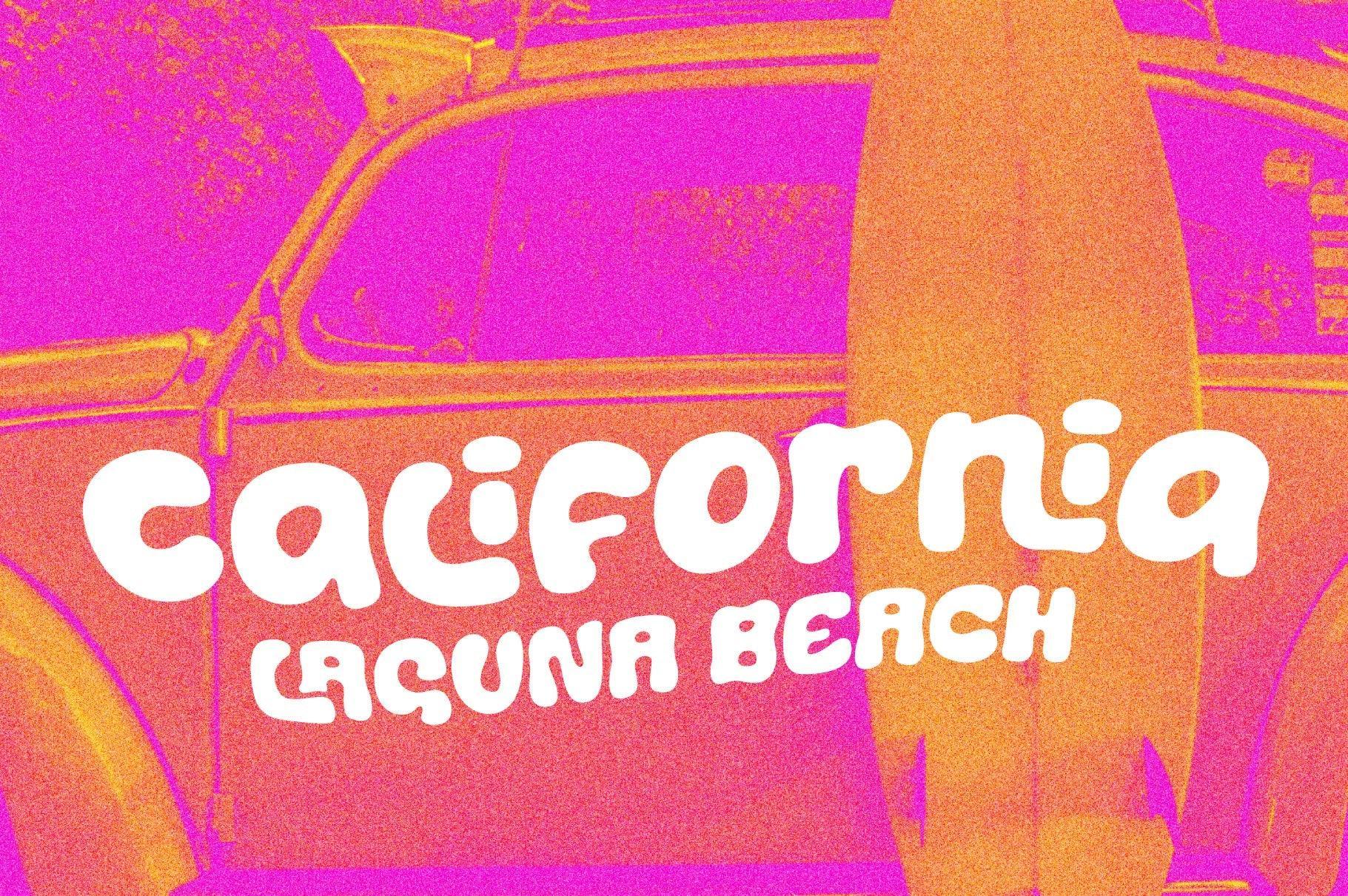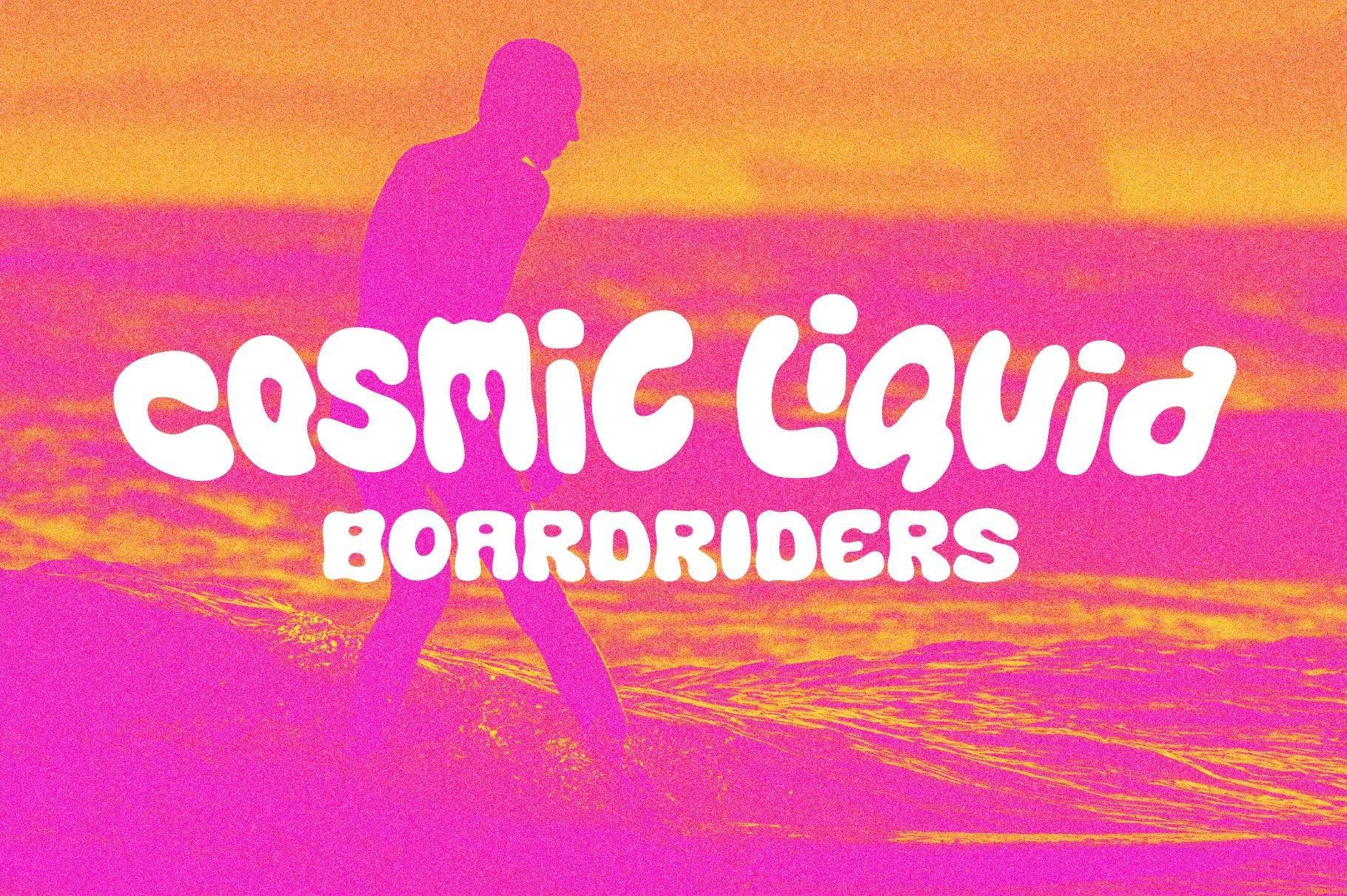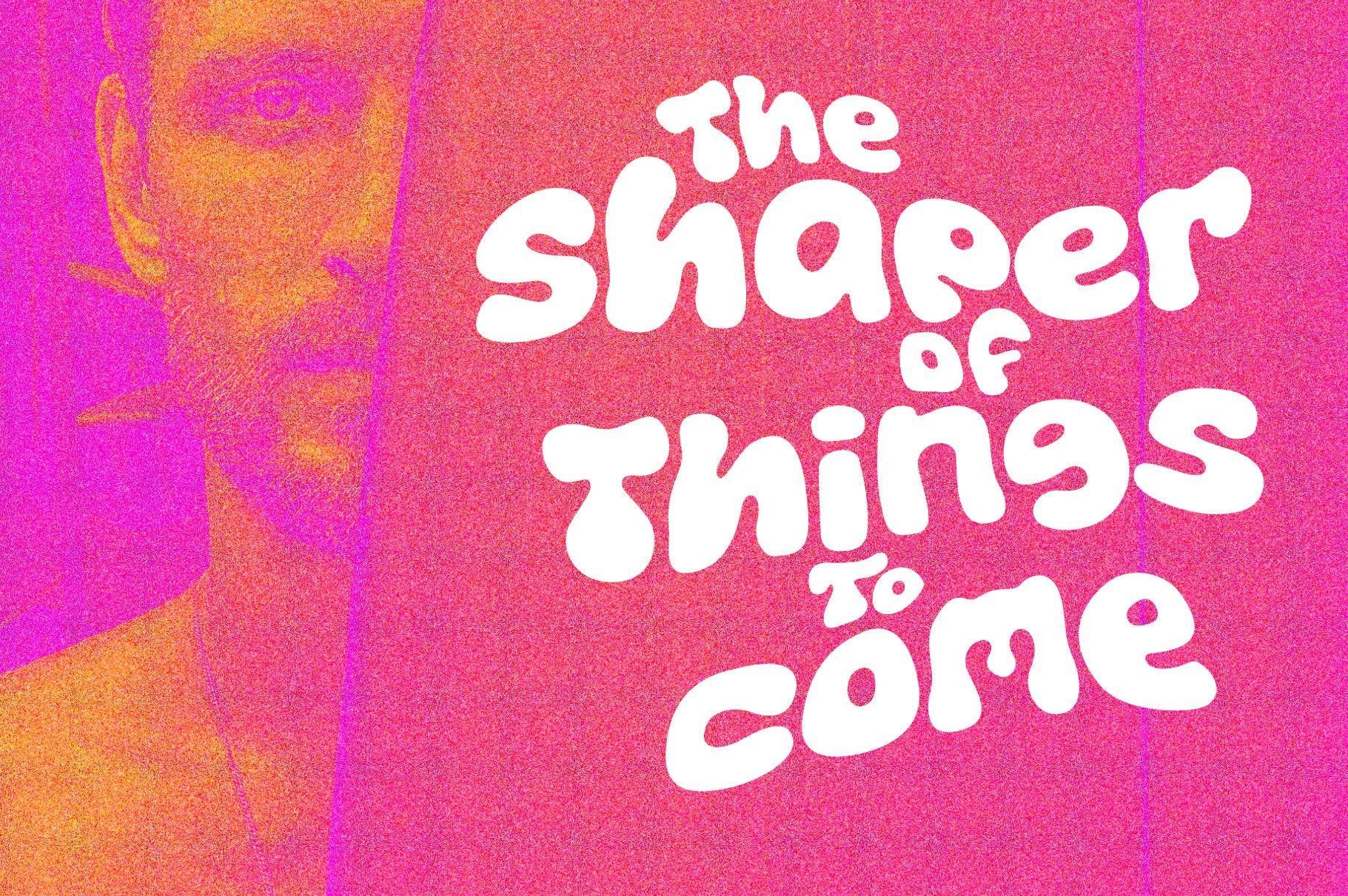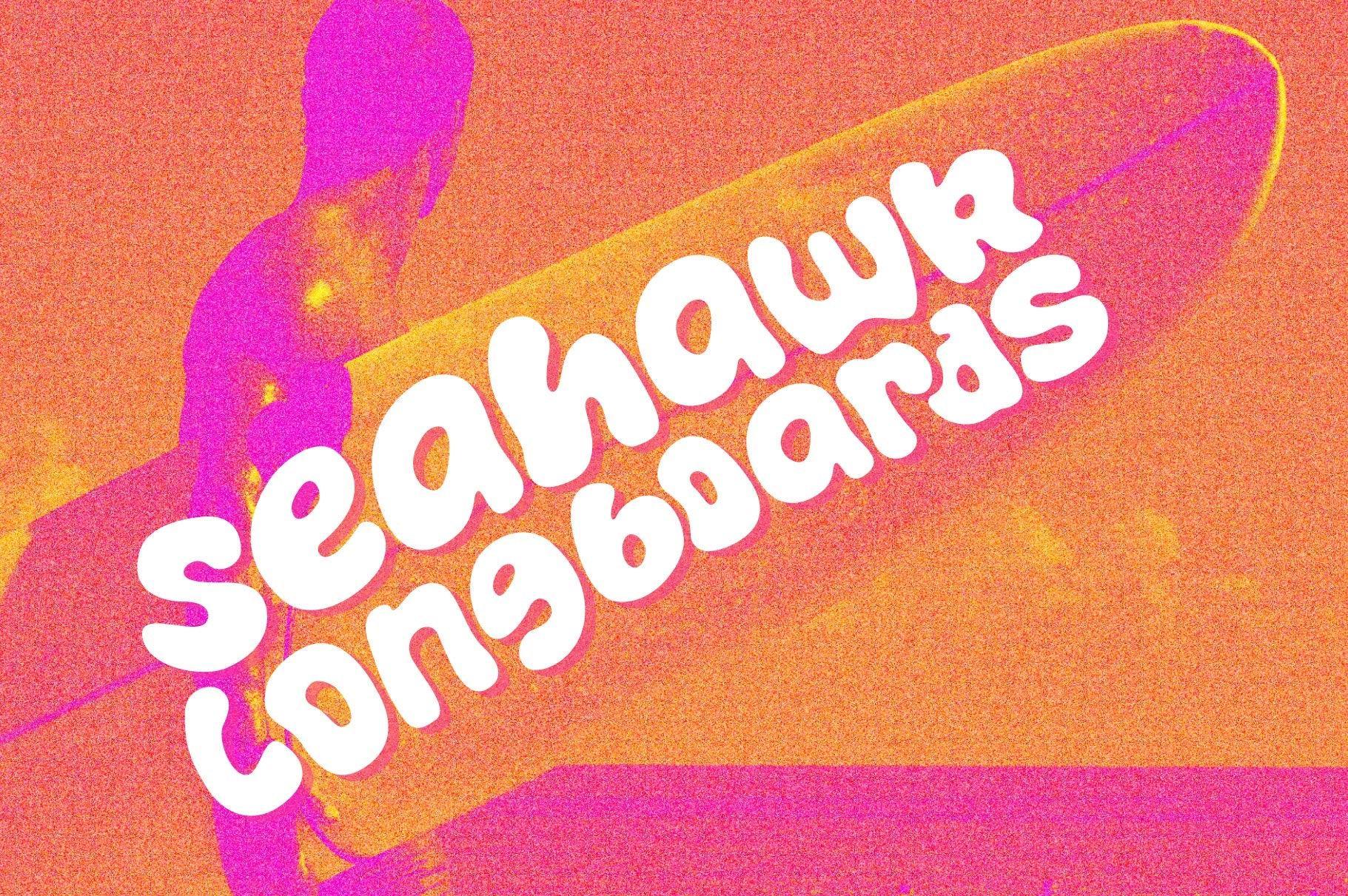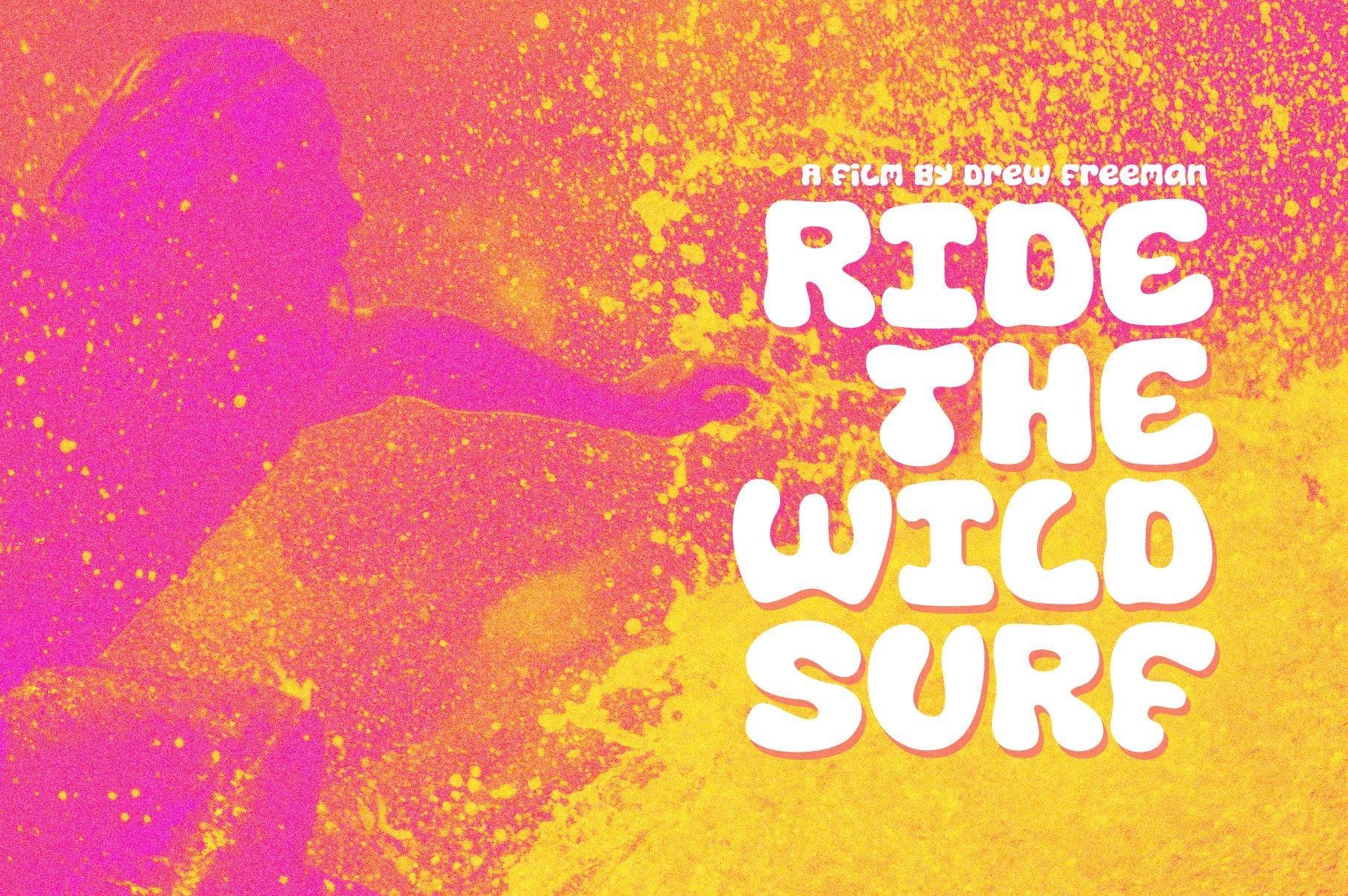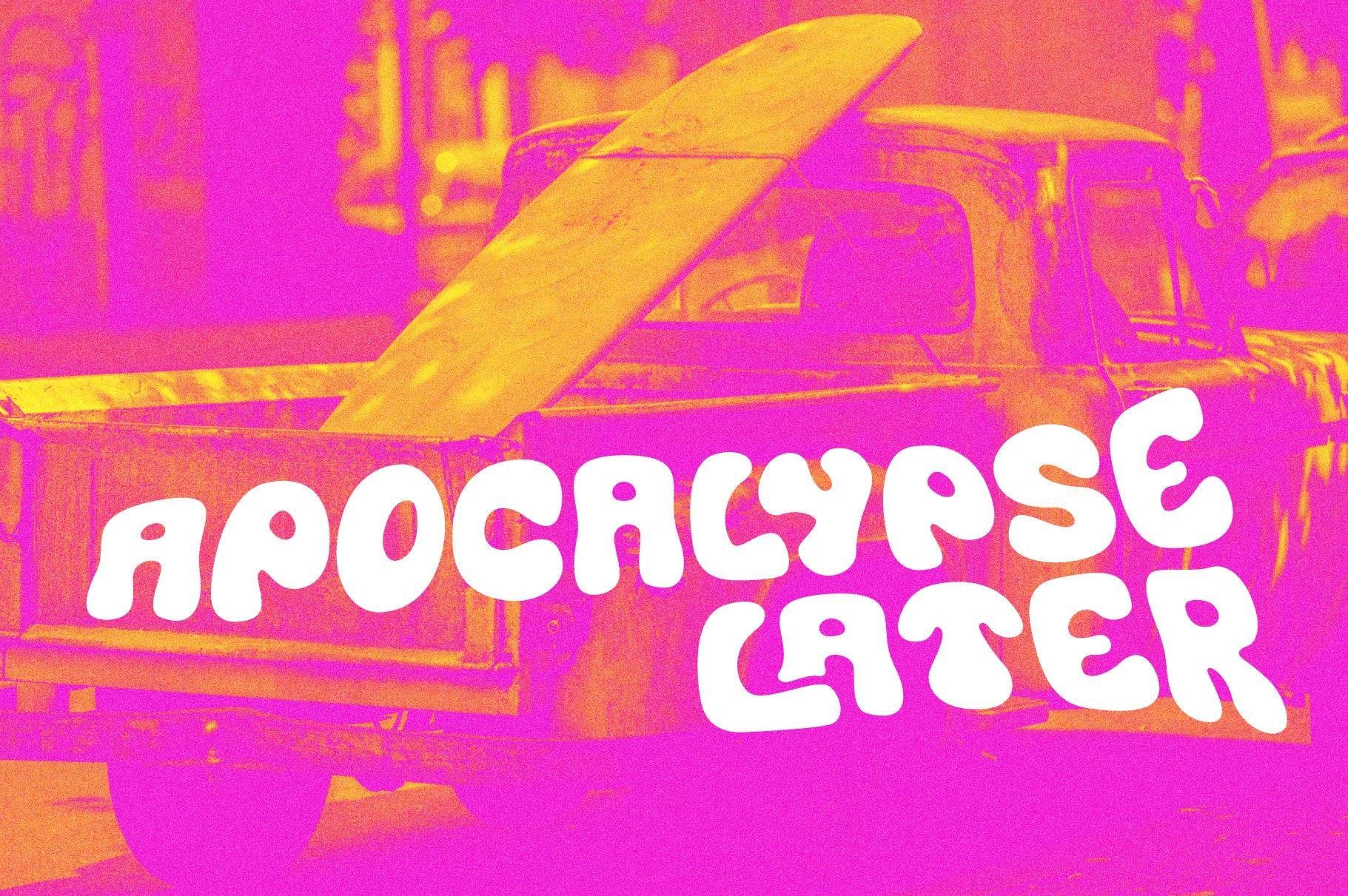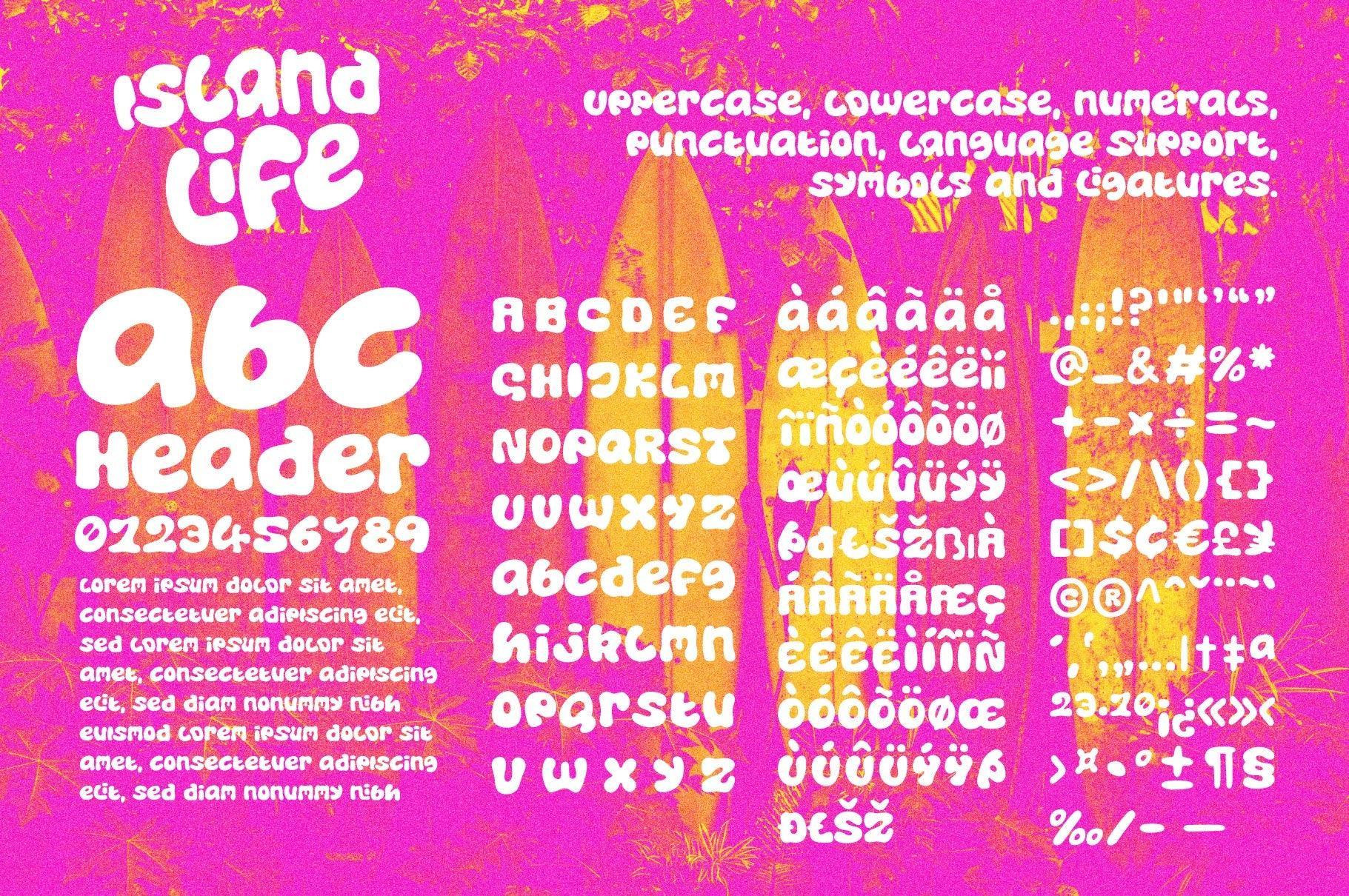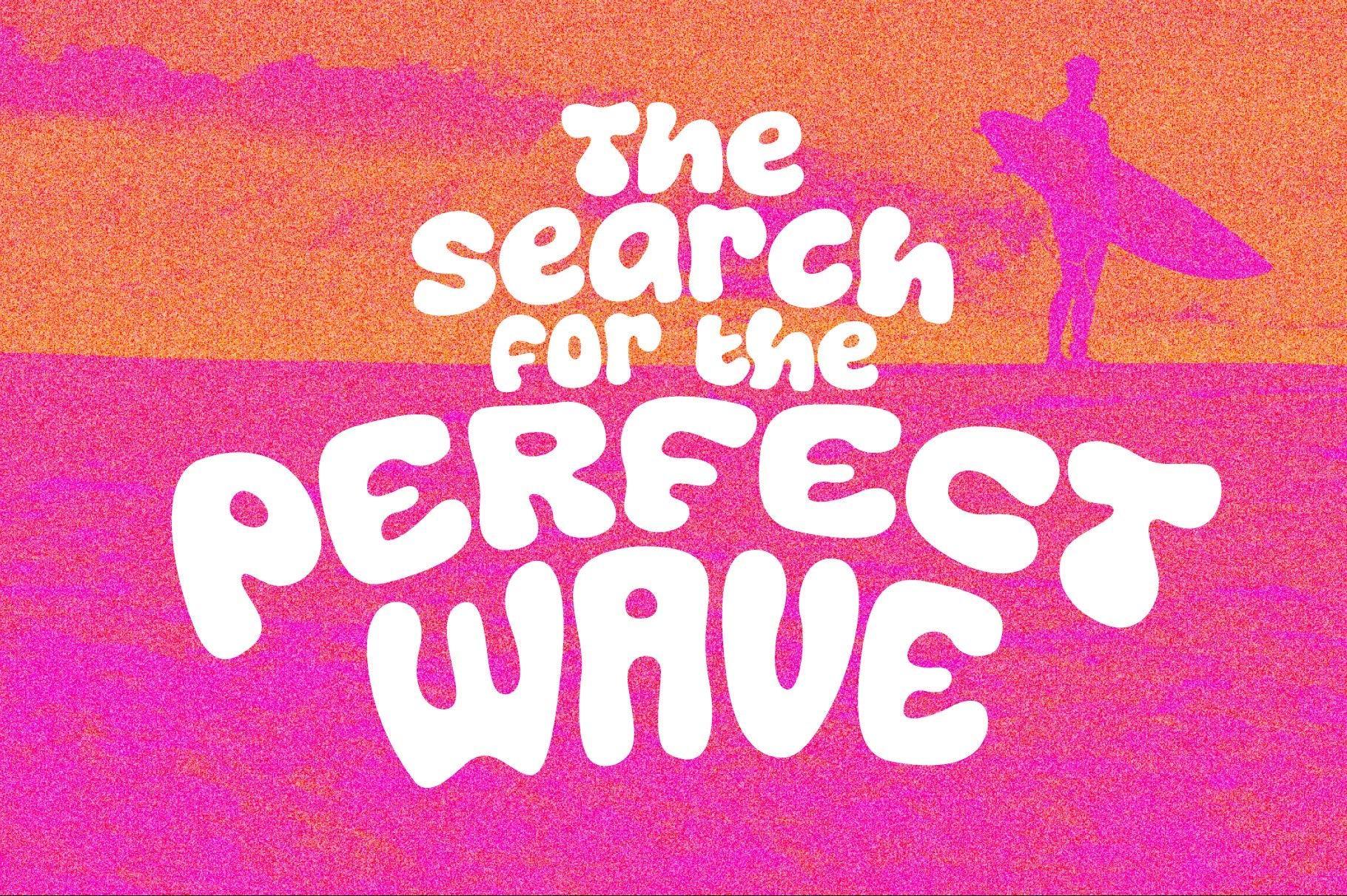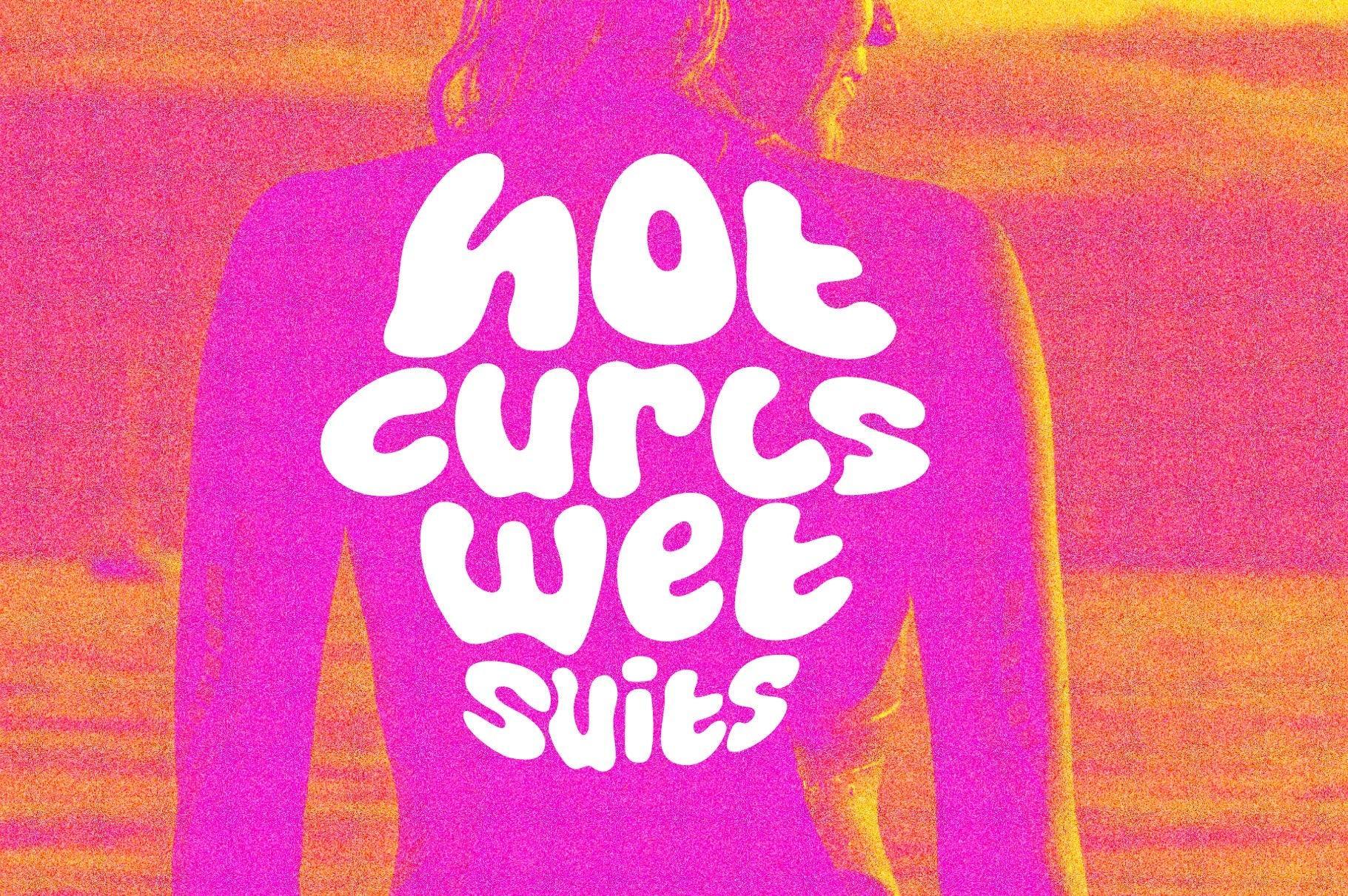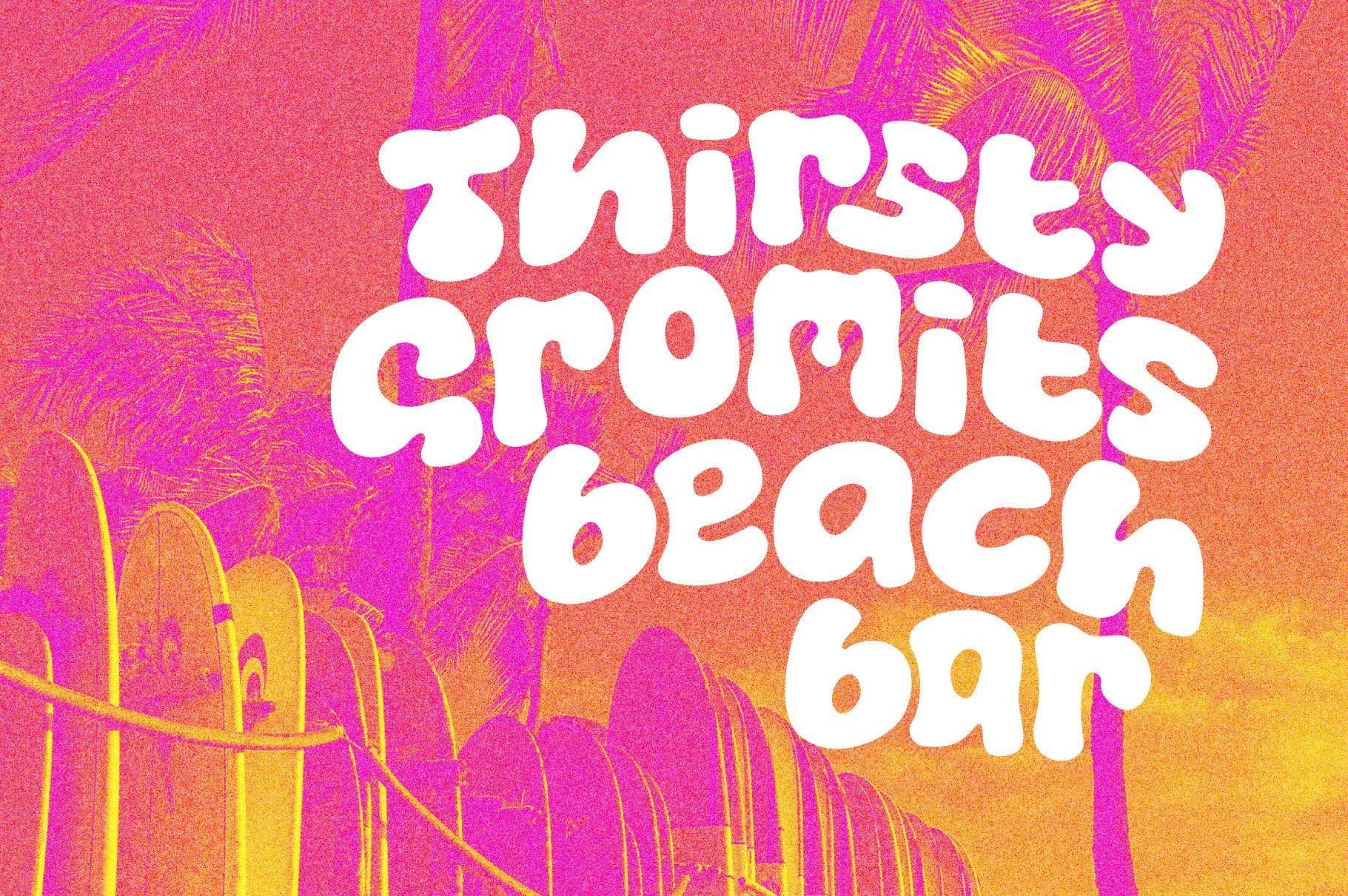
Island Life - A Surf Font
Island Life is a wavy font inspired by 1970s surf culture, featuring unique uppercase and lowercase characters, numerals, punctuation, and extensive language support. It includes automatic ligatures for a hand-made look and is compatible with various design software, making it suitable for a range of creative projects.
Ideal for retro-inspired graphic design and surf culture aesthetics. Perfect for posters, logos, t-shirts, and menus, ensuring a laid-back, harmonious style that captures the essence of summer.